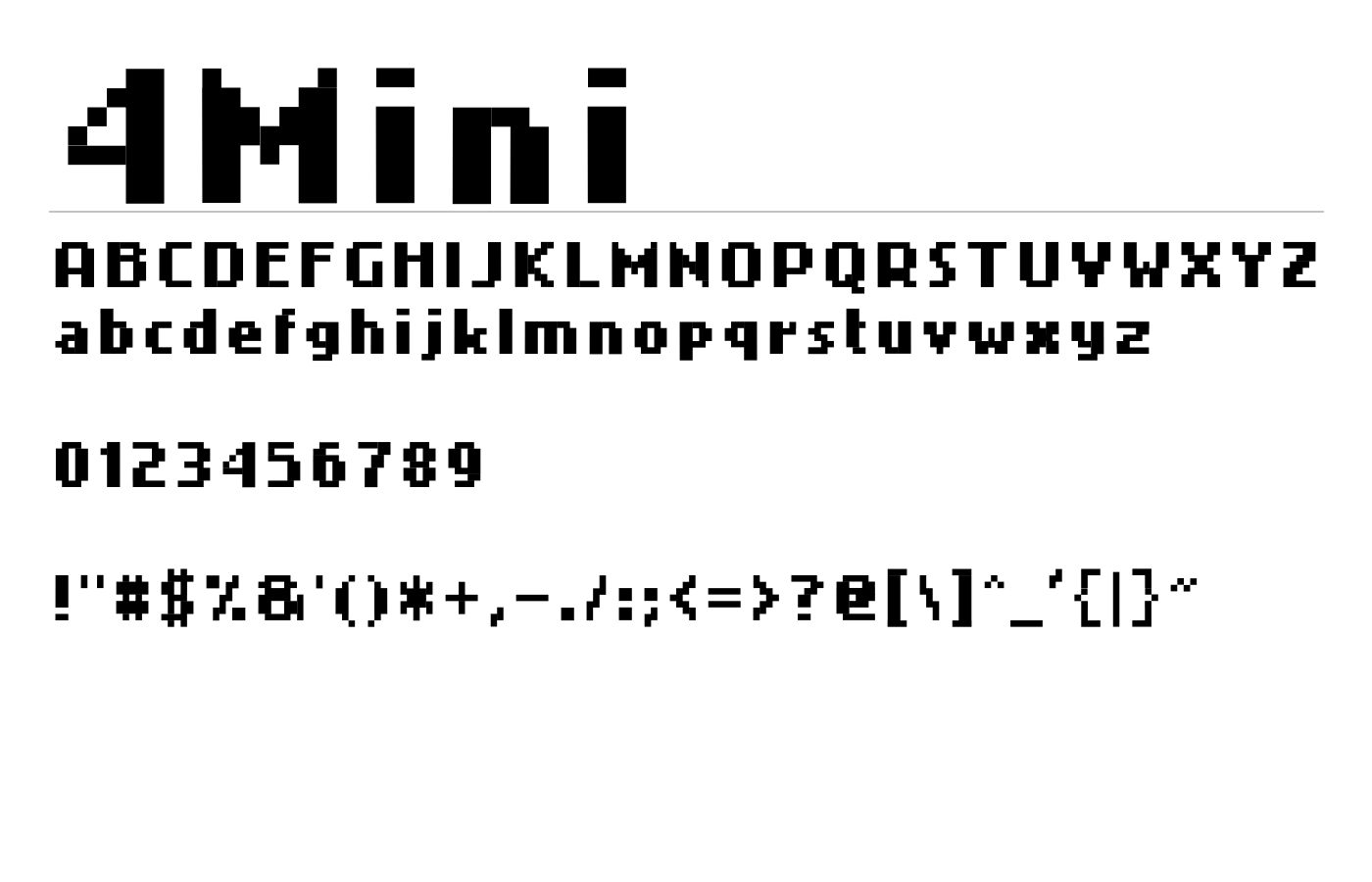
4Mini is a pixel-inspired sans serif font that features a blocky, monospaced design with sharp, geometric edges and a consistent weight throughout. Its small x-height and simple, pixelated letterforms give it a charming retro digital feel, making it ideal for use in gaming, tech, or digital art projects where a nostalgic yet modern look is desired. This font works best in headlines, logos, or creative interfaces that want to evoke the aesthetics of early computer graphics.
4Mini Font
About 4Mini Font
| Font family | 4Mini Font |
| Designer | bartek nowak |